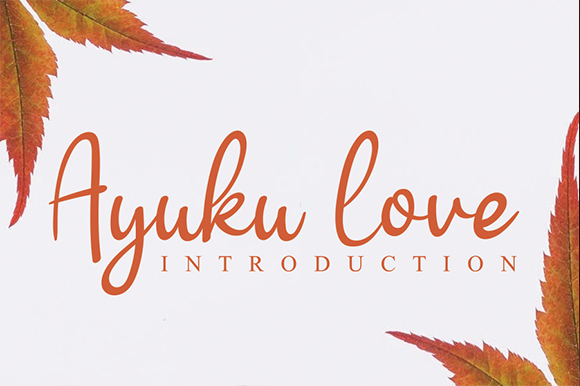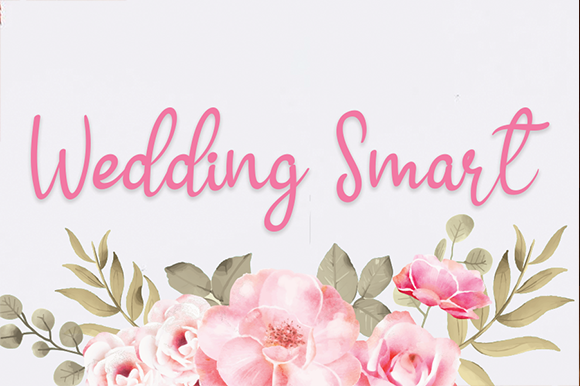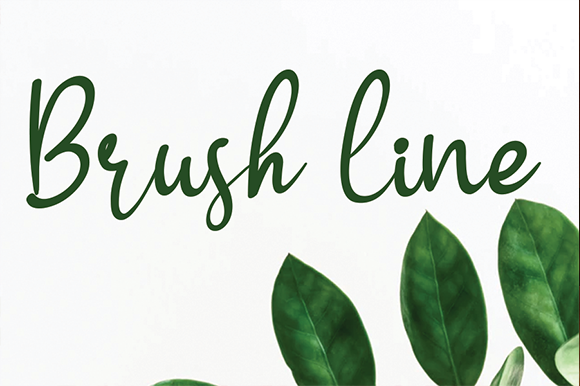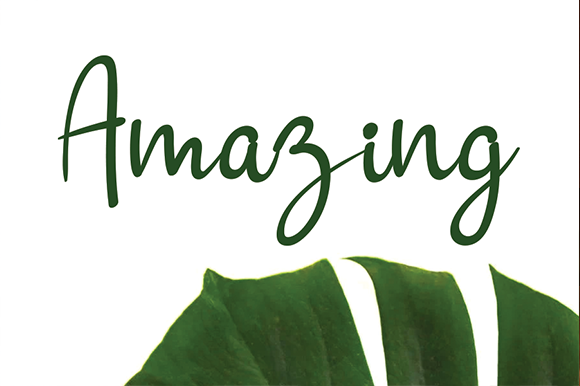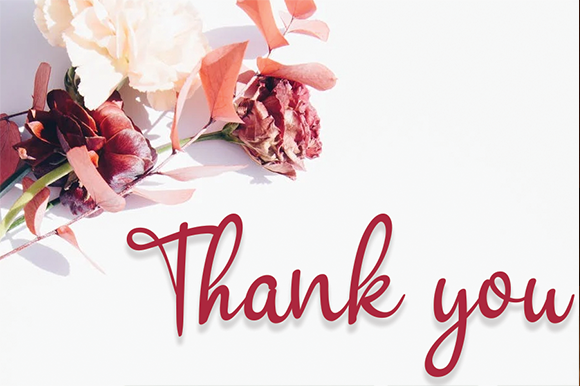
Ayuku Love Font
About Ayuku Love Font
Ayuku Love is a cute and casual handwritten font with an incredibly friendly feel. Whether you’re looking for fonts for Instagram or calligraphy scripts for DIY projects, this font will turn any creative idea into a true piece of art!